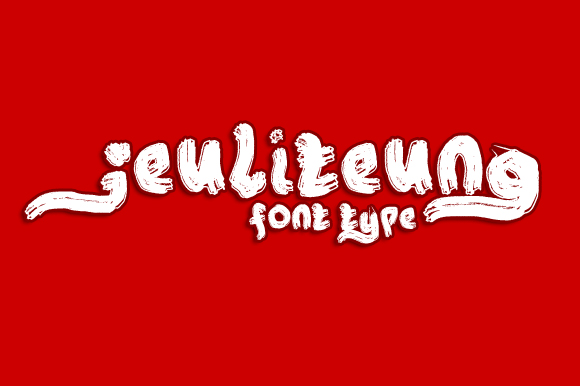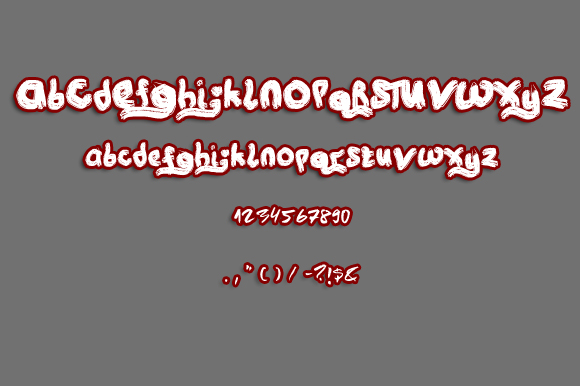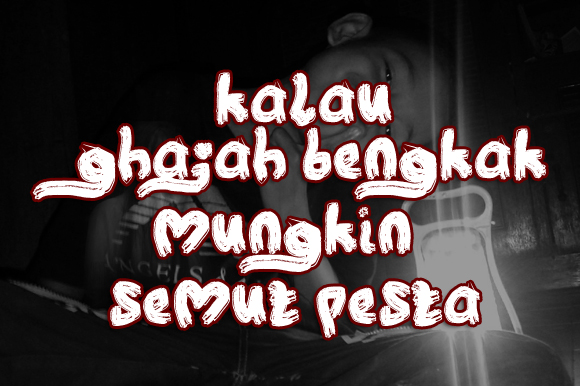
HomeScript FontsJeuliteung Font Script Fonts Jeuliteung Font FacebookXPinterestWhatsApp Jeuliteung Font Poster 2 Jeuliteung Font Poster 3 Jeuliteung Font Poster 4 About Jeuliteung Font Jeuliteung, a rough brush font. DOWNLOAD ON CREATIVE FABRICAThis font is sold and delivered by Creative Fabrica. Font Canyon may earn a commission if you buy through this link. People also explored Ghosh Riderez Font Sheridan Font Masitha Font Birthday Midnight Font The Black Font Fast Coffee Font Madania Script Font Gercoff Bold Font 316 0 TagsJeuliteung Font Previous articleMudeva FontNext articleJokoanakteka Font LEAVE A REPLY Cancel reply Comment: Please enter your comment! Name:* Please enter your name here Email:* You have entered an incorrect email address! Please enter your email address here Website: Save my name, email, and website in this browser for the next time I comment. Personal Use Free Rogueland Personal Use Free Read more about this font Rozalyn Personal Use Free Read more about this font Arnprior Personal Use Free Read more about this font Alinda Personal Use Free Read more about this font BLOG Best Fonts for T-Shirt Design – Top 2025 Picks In 2025, t-shirt design has become more than just fashion—it's a form of self-expression. Whether you're... Using Fonts in Digital Marketing: Tips to Strengthen Your Brand Identity Top 7 Google Fonts Alternatives for Faster and Privacy-Friendly Web Design (2025) 5 Fonts That Will Dominate Design Trends in 2026